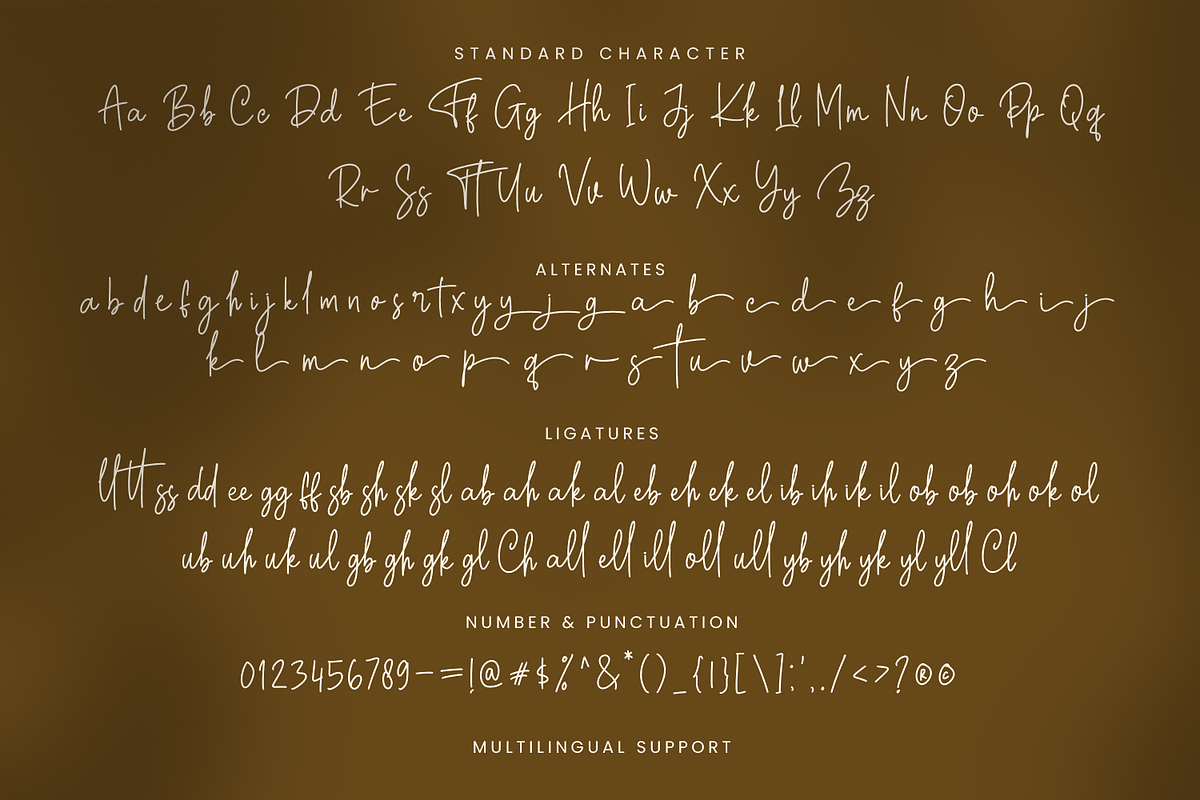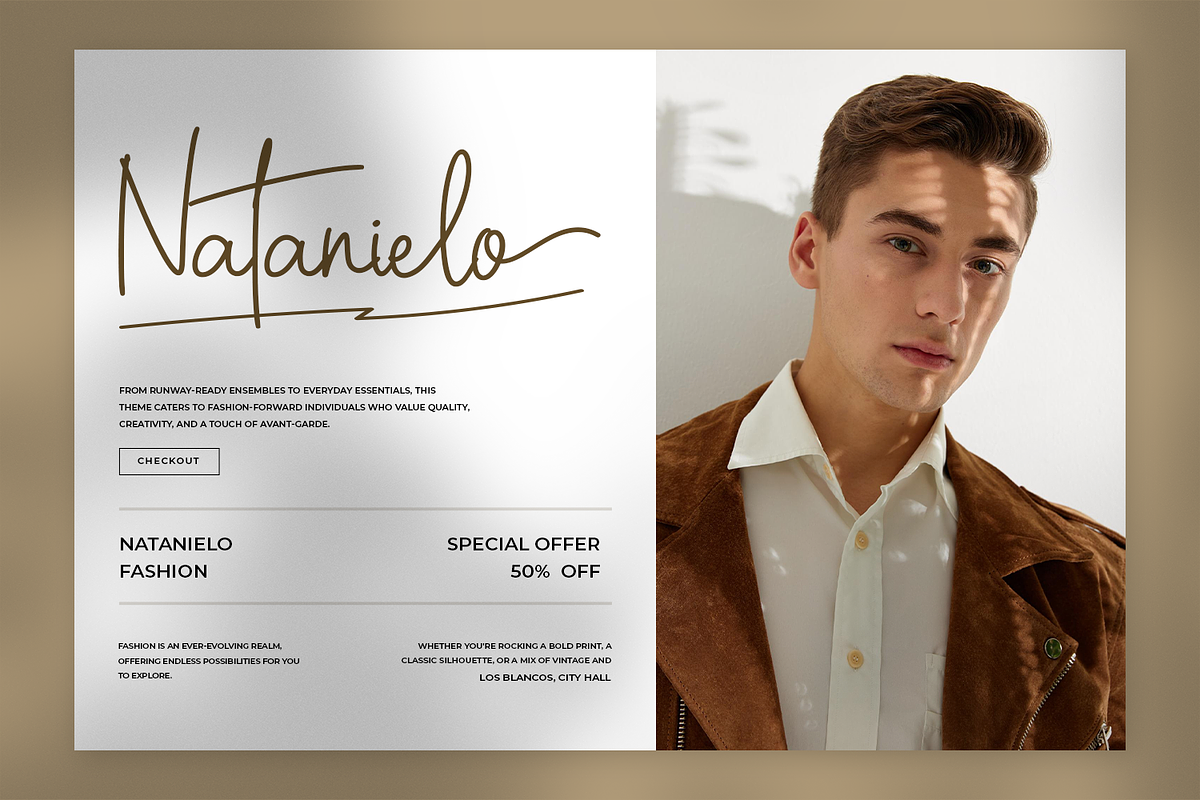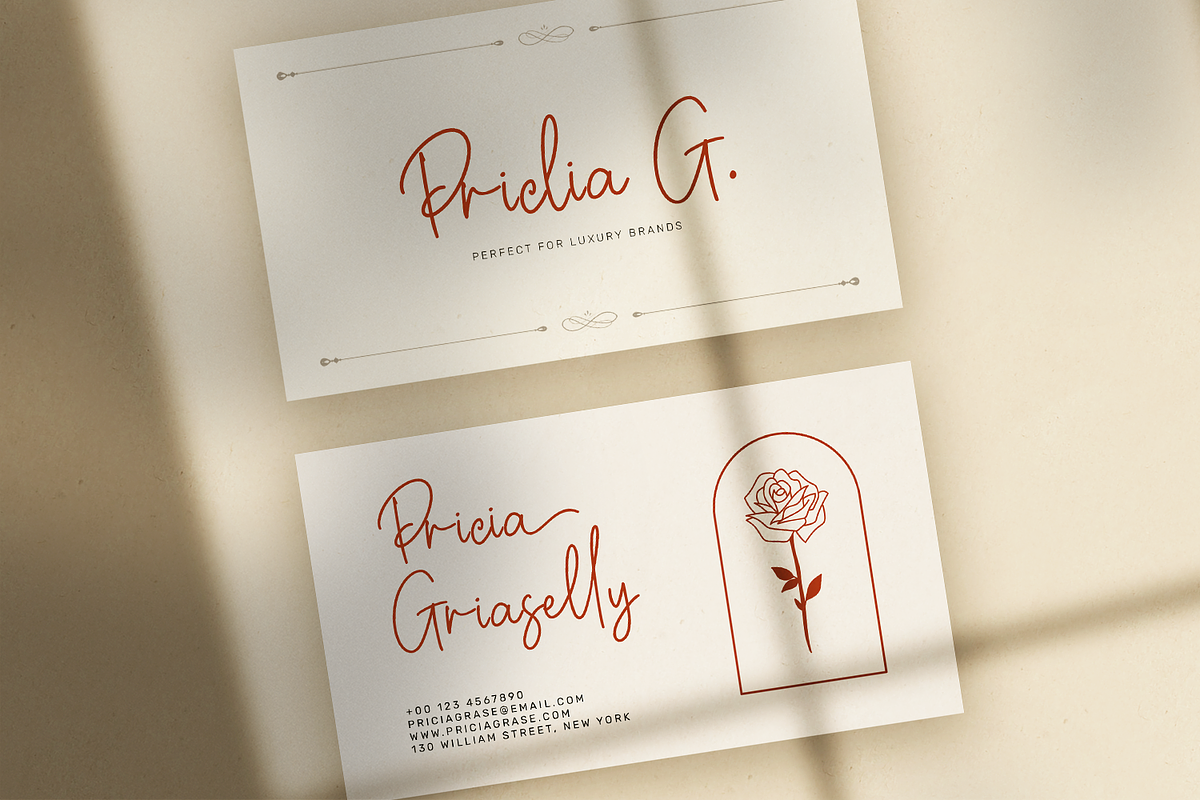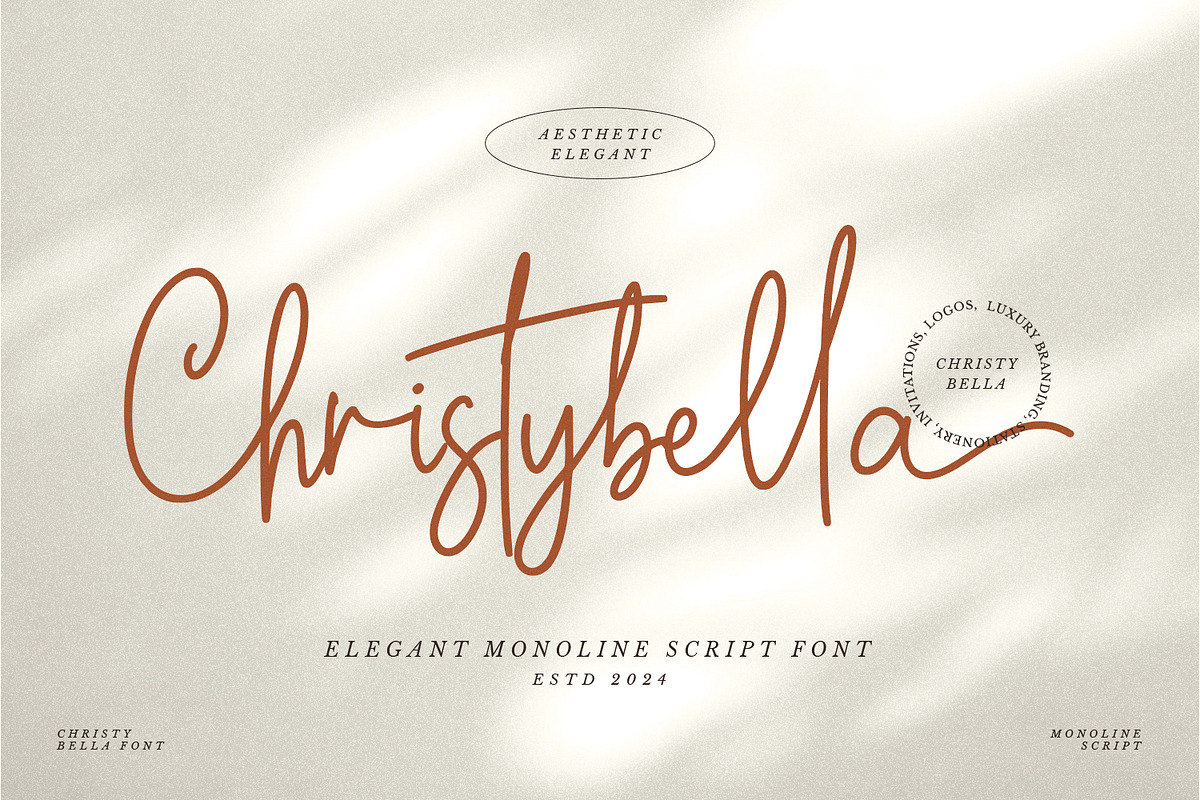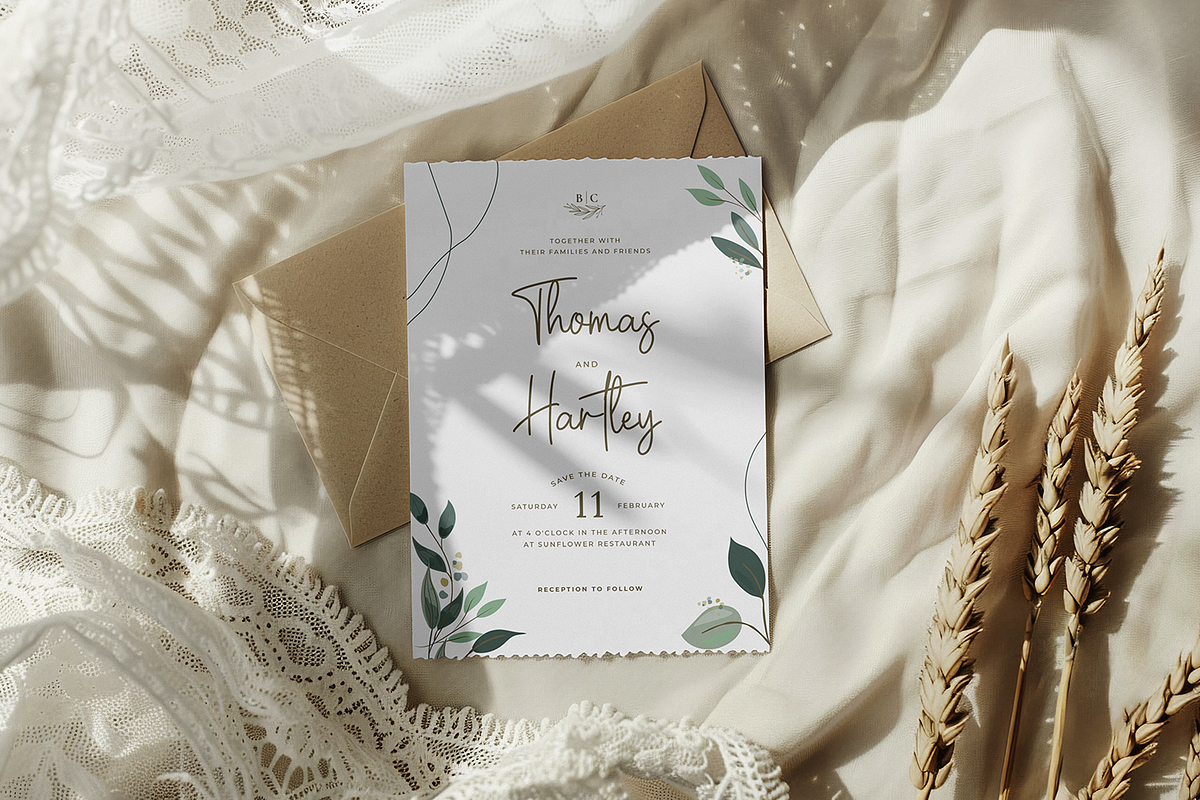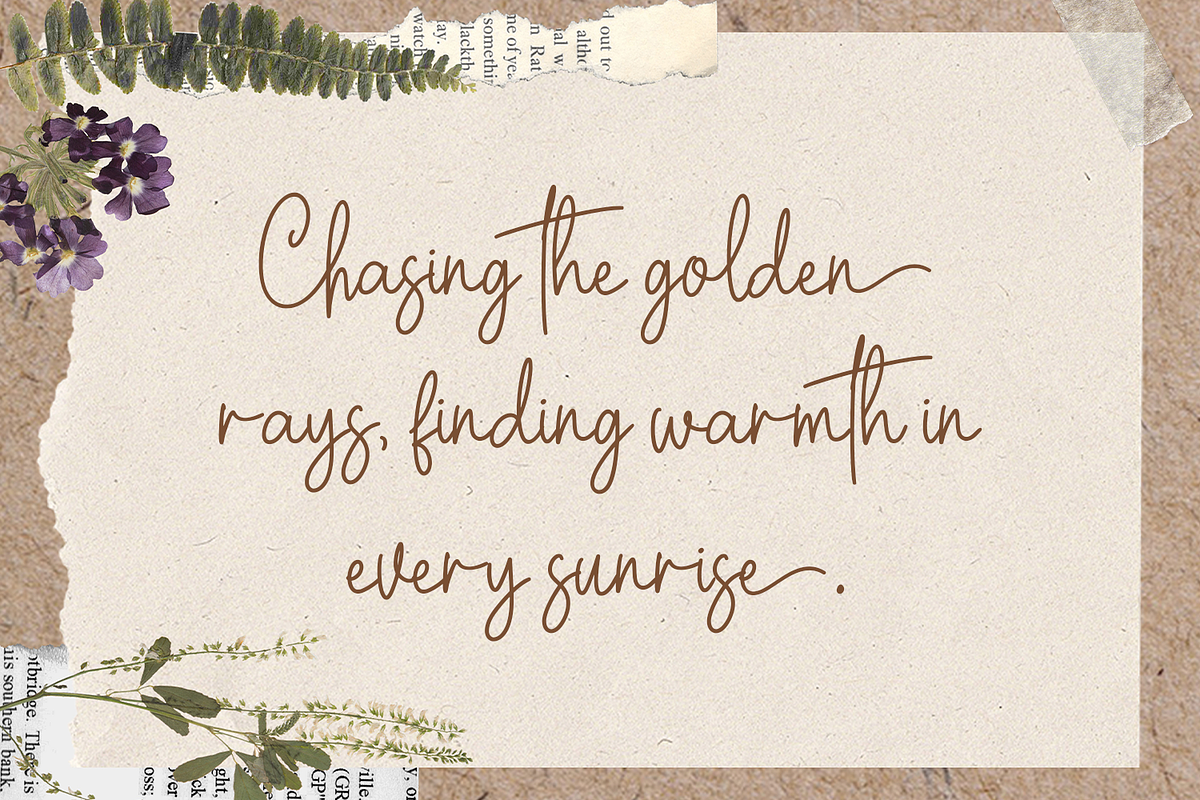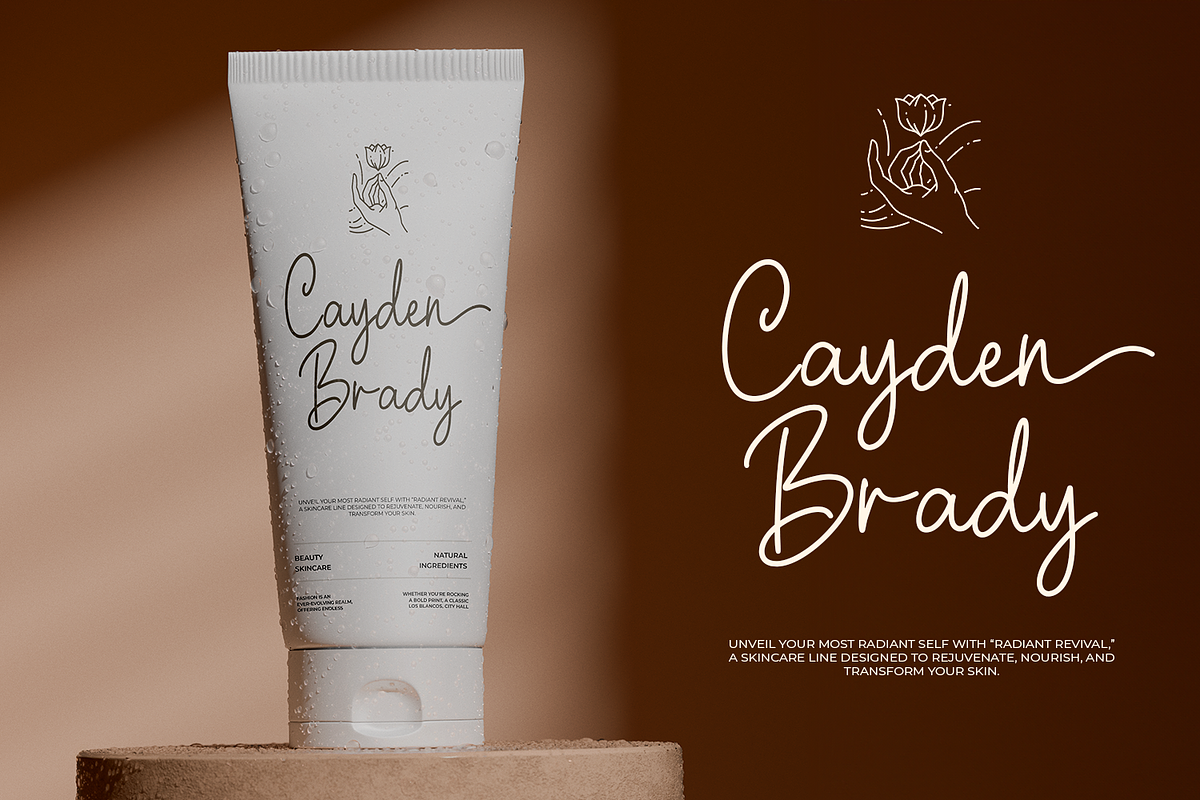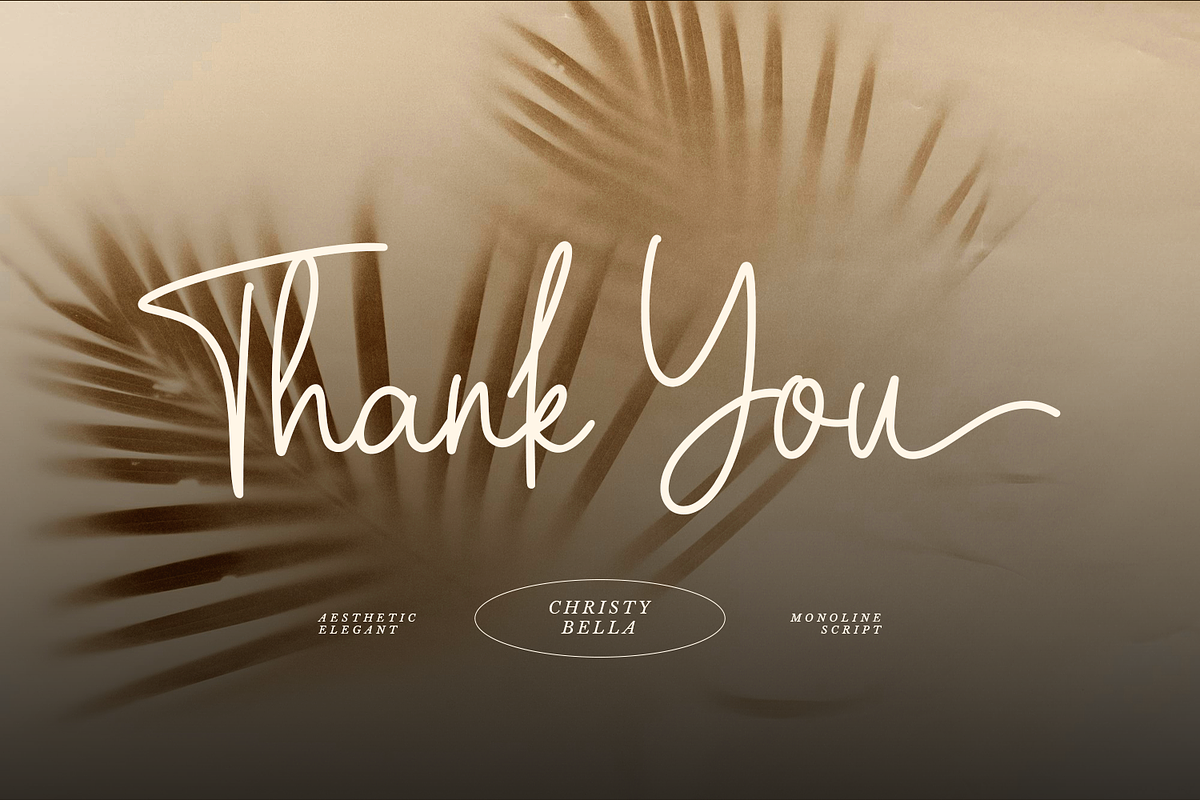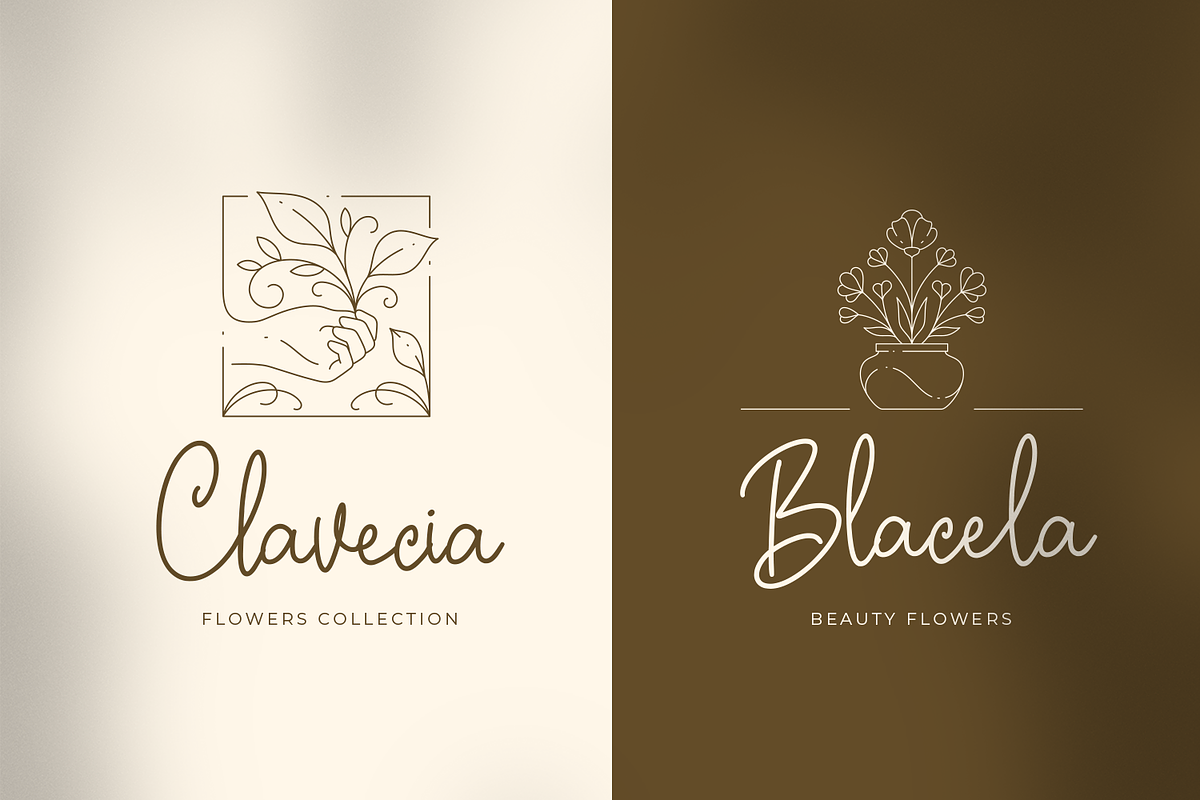
Christybella - Stylish Signature Fon
Christybella is a monoline and script handwritten font that exudes elegance and charm. With its distinct, well-rounded letters, this font is a true masterpiece that effortlessly combines legibility with authenticity. The stylish signature-style script features unique curves and an elegant inky flow, making it a perfect choice for those seeking a sophisticated and fashionable touch in their designs.
Whether you're working on wedding invitations, thank you cards, quotes, or greeting cards, Christybella will bring an incredible sense of elegance and fluidity to your work. Its versatility also makes it an excellent choice for logos, business cards, and any project that requires a personal handwritten touch. The varying baseline, smooth lines, gorgeous glyphs, and stunning alternates make Christybella truly special, adding a beautiful handwritten flair to your creations.
Fall in love with the incredibly versatile Christybella font and use it to create stunning, personalized designs. Its smooth and flowing lines are perfect for any project that needs an elegant, handwritten touch. The stylish and sophisticated look of Christybella will undoubtedly captivate your audience and leave a lasting impression.